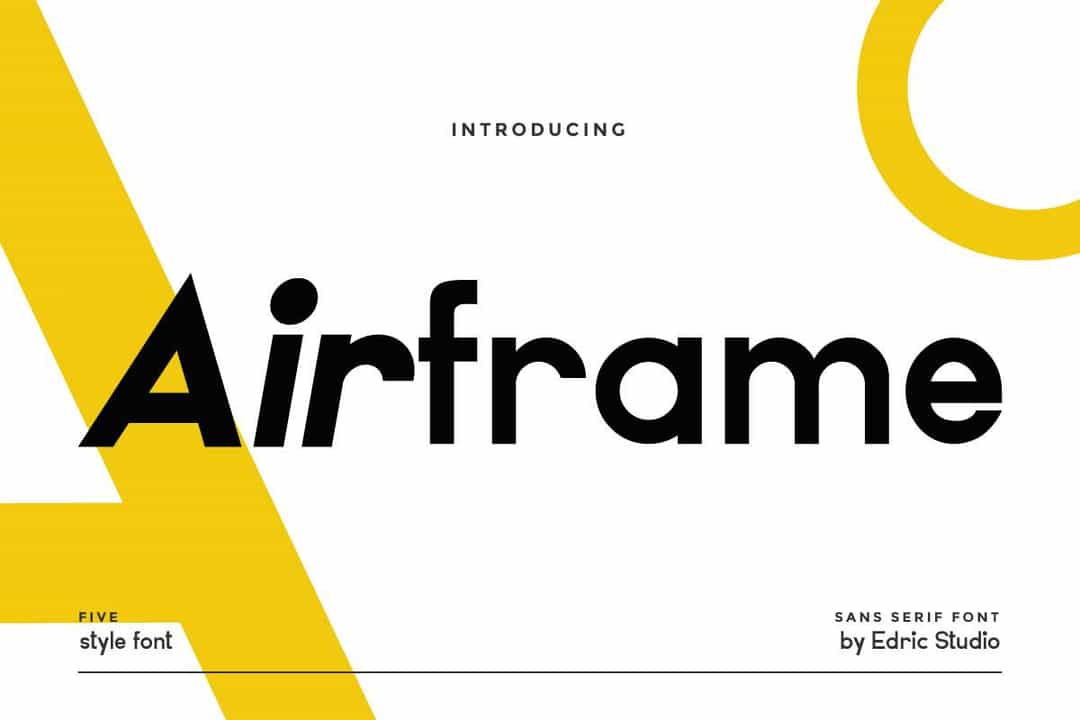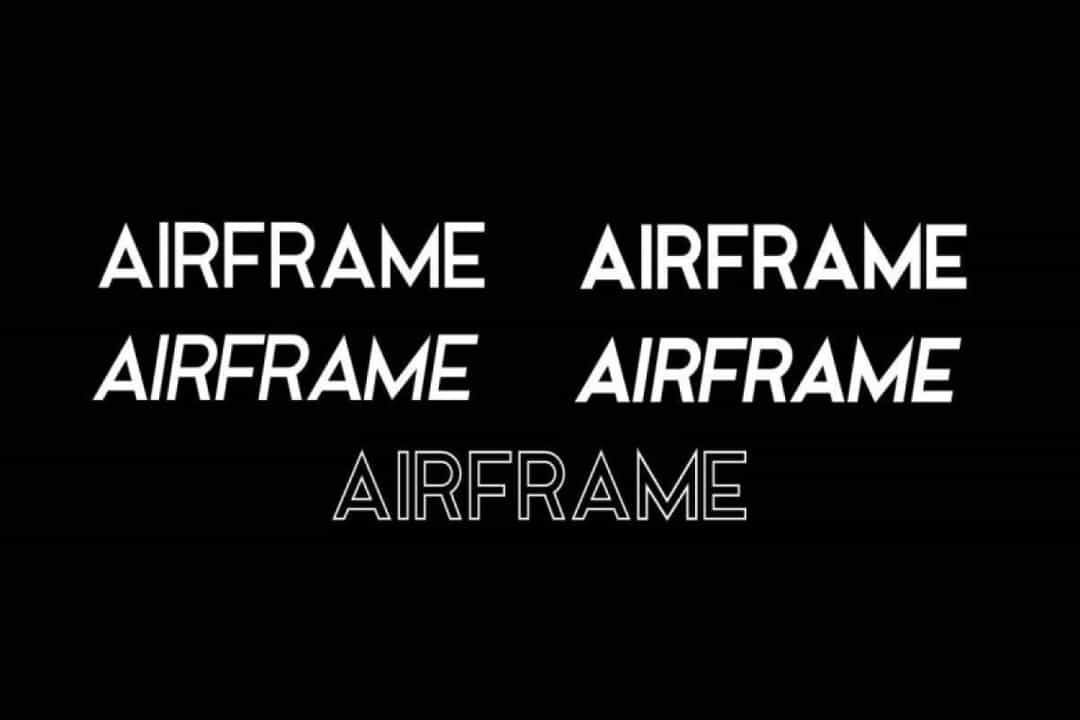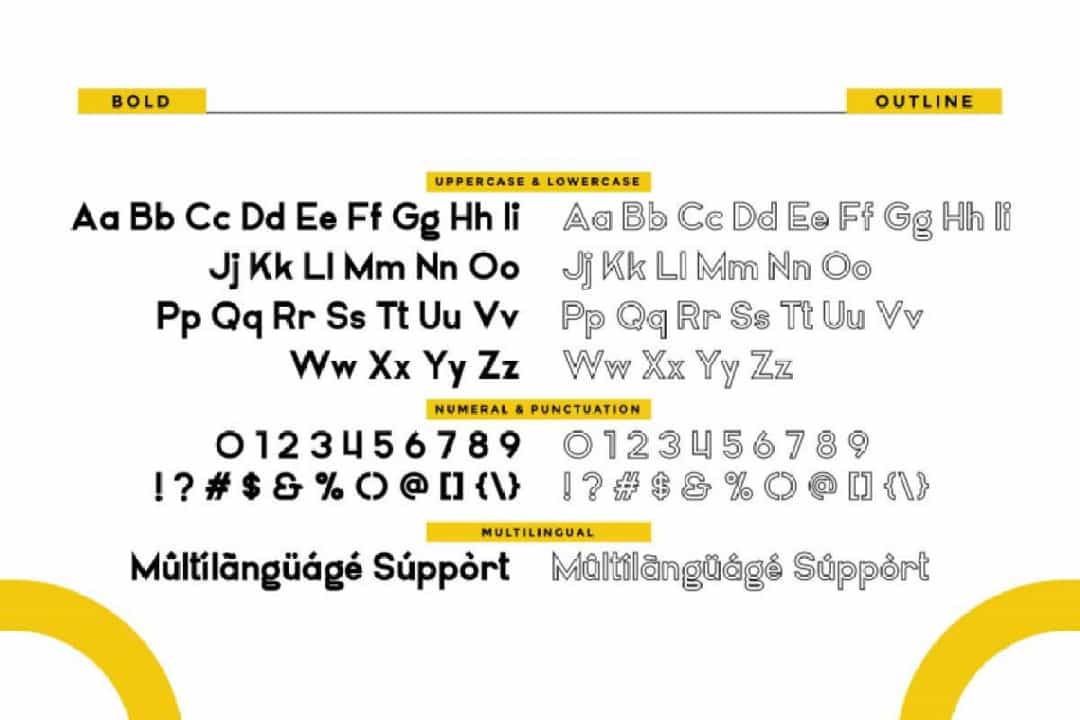
Airframe is a contemporary sans serif font with an easygoing aesthetic. The typeface was handcrafted at our Studio here in Indonesia by Renata and Sarah Suci – two designers and artists behind its creation.